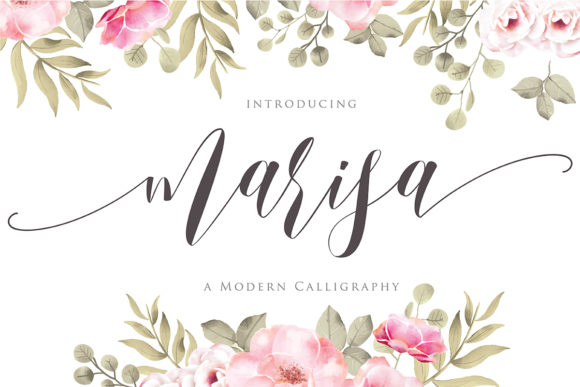
Behold Marisa, a font that dances across your screen like a symphony of ink, leaving a trail of elegance in its wake. A creation of Gilar Studio, this script font family is an ode to beauty, a masterpiece that will transform your designs into works of art. With its graceful curves and whimsical swashes, Marisa is the perfect choice for any project that calls for a touch of sophistication and charm.
Imagine your resume, adorned with Marisa's delicate strokes, dancing off the page and captivating the attention of potential employers. Its elegant charm will leave a lasting impression, making you stand out from the crowd and leaving them eager to discover more about your skills and experience.
Or perhaps you're crafting a wedding invitation, a tangible symbol of love and commitment. Marisa's flowing lines and romantic aura will add a touch of magic to your special day, creating a keepsake that will be cherished for years to come. Your guests will be captivated by its timeless beauty, their hearts warmed by the love and care you've poured into every detail.
And oh, the greeting cards! With Marisa as your companion, your words will take on a new life, becoming heartfelt expressions of joy, gratitude, and affection. Whether it's a birthday, anniversary, or simply a moment to say hello, your cards will carry the weight of your emotions, speaking volumes beyond the words themselves.
From логотипы that command attention to branding materials that exude professionalism, Marisa is the ultimate chameleon, adapting seamlessly to your every need. Its versatility is boundless, allowing you to create a cohesive and visually stunning brand identity that will leave a lasting impression on your customers.